Typography plays a crucial role in design, and choosing the right font can completely transform the look and feel of a project. Serif fonts have always been popular among designers thanks to their elegance, readability, and timeless style. They add a sense of professionalism, tradition, and refinement — making them a perfect choice for both digital interfaces and print materials.
In this article, we’ve put together a curated list of the 25 best free serif fonts for designers. This collection is divided into two sections to help you find exactly what you need:
Popular Serif Fonts from Google Fonts – widely recognized, versatile, and easy to integrate into web projects. Fonts like Merriweather, Playfair Display, and Lora are among the most commonly used typefaces in both UI design and editorial projects, thanks to their readability and professional appearance.
Modern and Stylish Serif Fonts – unique, creative, and designed to make your project stand out. These typefaces combine the classic charm of serifs with a contemporary twist, making them perfect for branding, posters, social media graphics, logos, and packaging design.
👉 Why choose free serif fonts?
- They offer a professional and elegant style.
- Ideal for long-form text, books, and websites.
- Work well for logos, headlines, and branding projects.
- Accessible and easy to use across platforms.
Explore our handpicked serif fonts and give your design work the sophistication and originality it deserves!
1. Merriweather
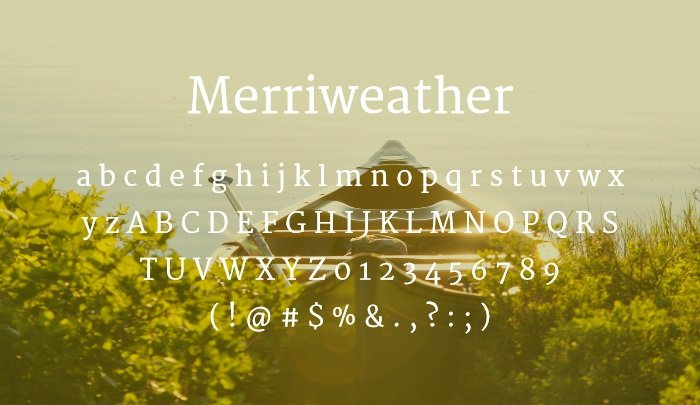
2. Roboto Slab
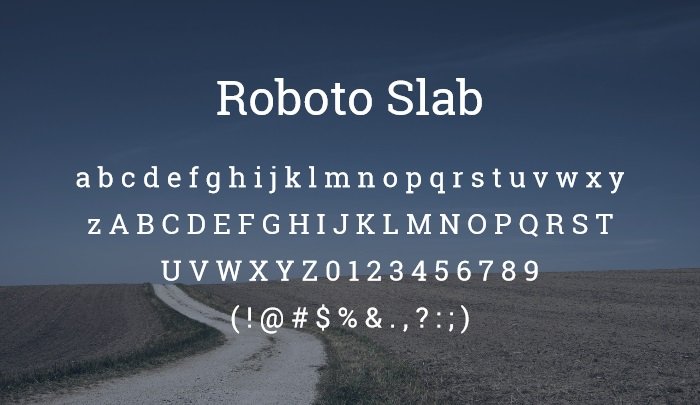
3. Playfair Display
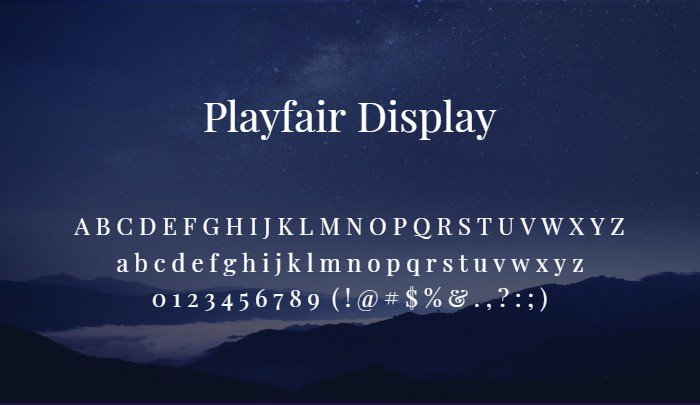
4. Lora
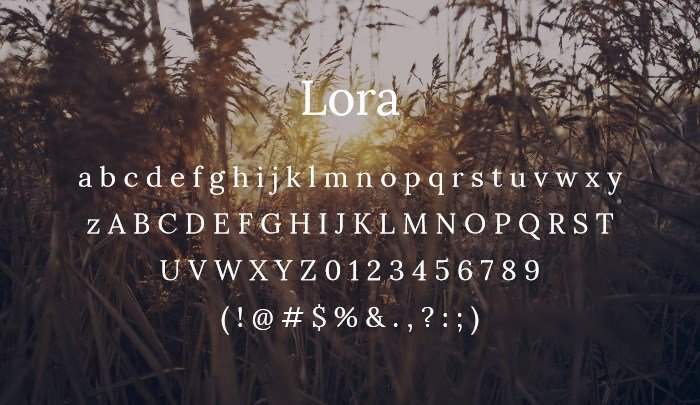
5. PT Serif
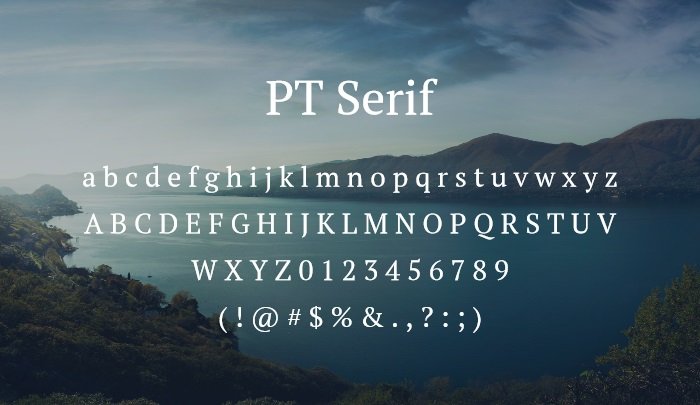
6. Noto Serif
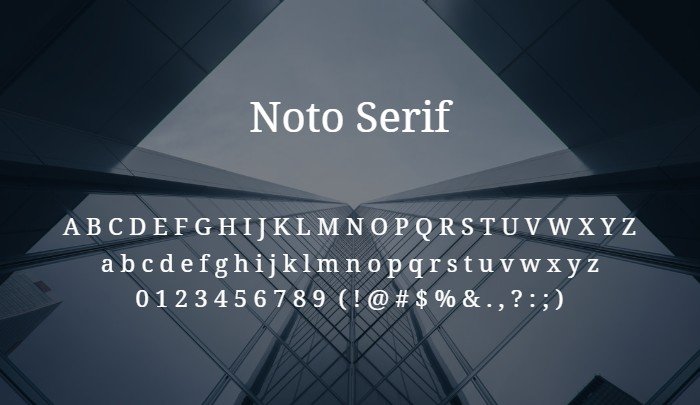
7. EB Garamond
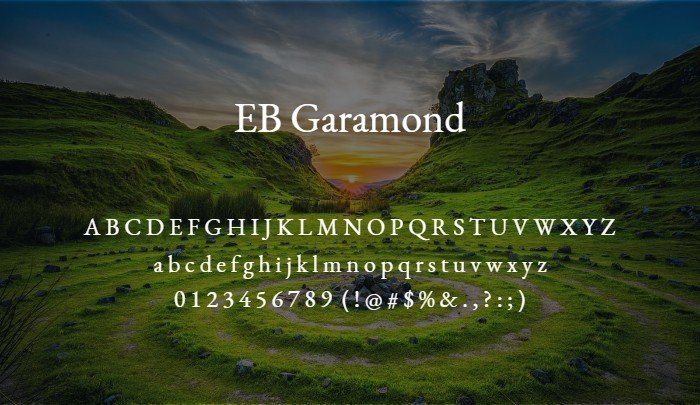
8. Bitter
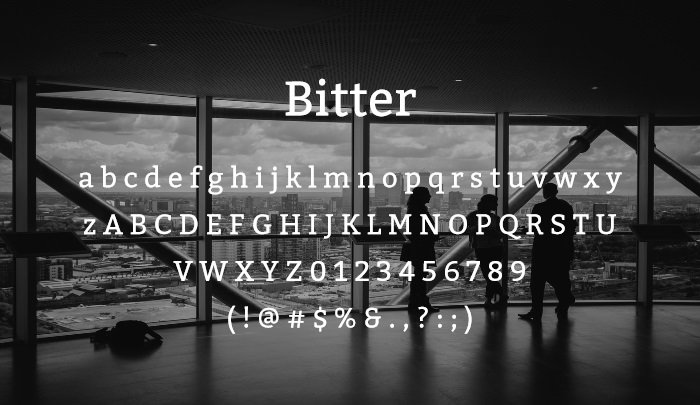
9. Source Serif Pro
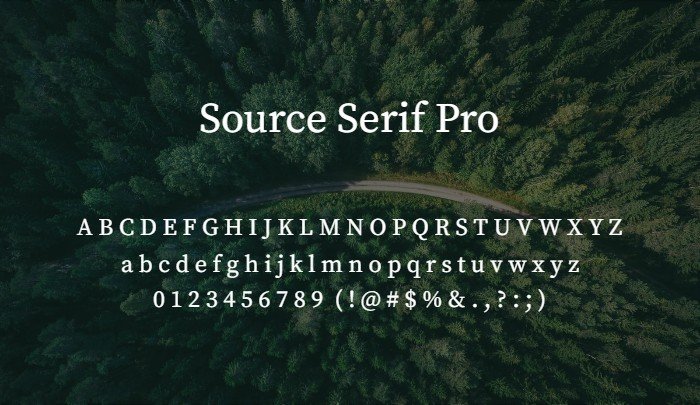
1. NewYork
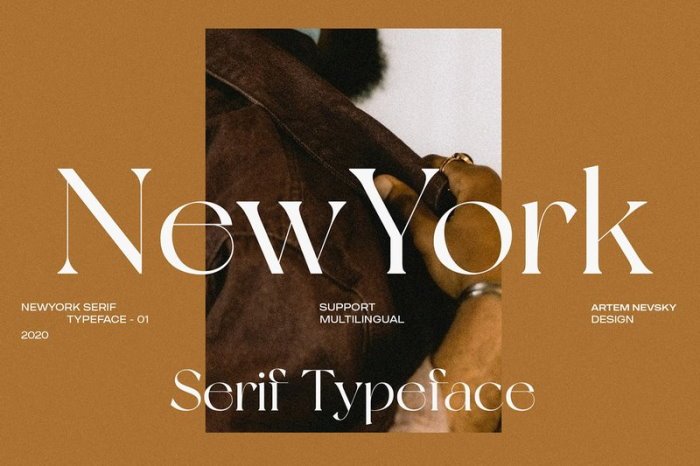
2. Roxie Rossa
3. Understock
4. Ranking Caps & North Avellion
5. Aleo
6. Sunday
7. King’s Gambit
8. Wensley
9. Foerte
10. Forum
11. Le Super Serif
12. Botera
13. Henri Didot
14. Gilland
15. Engry